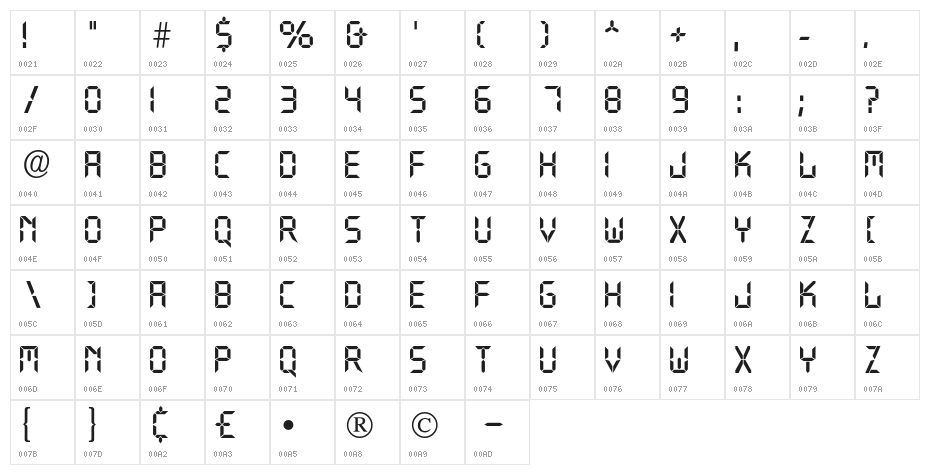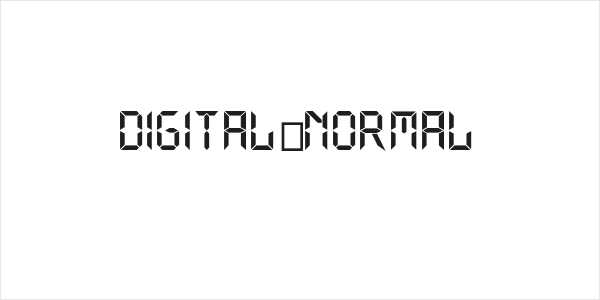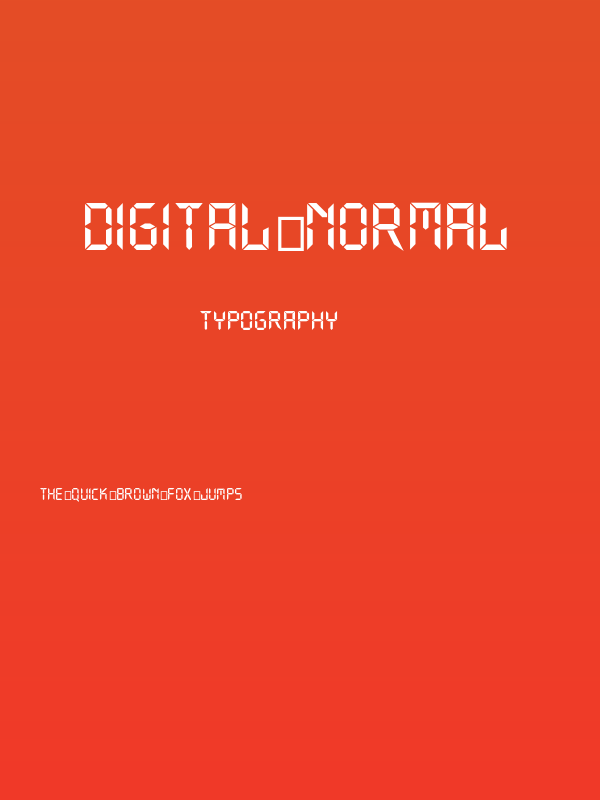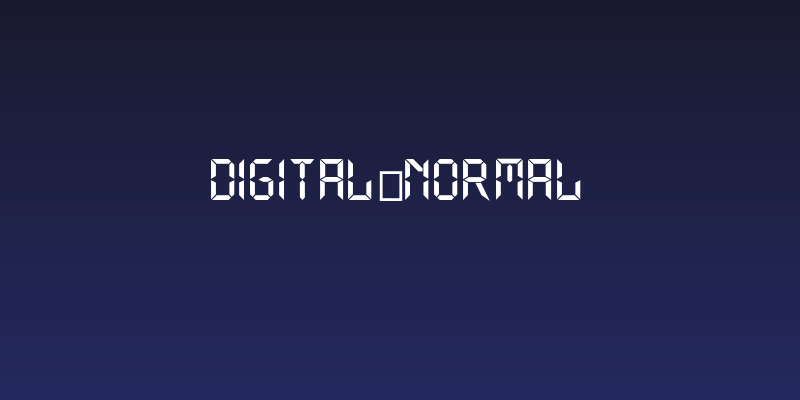
Digital Normal Font
| حالة الاستخدام | Headlines, Logos, Digital displays |
| مشاريع مقترحة | Ideal for digital-themed projects, tech branding, futuristic designs, and electronic displays. |